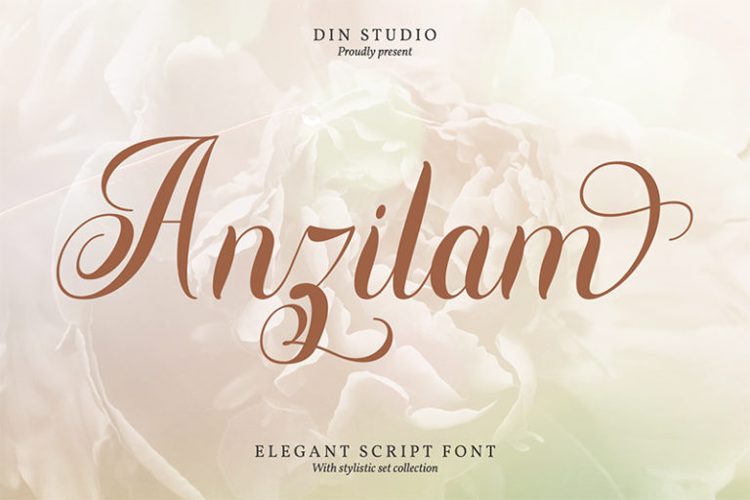
Anzilam Font
Anzilam is a modern calligraphy font. It brings a beautiful and attractive typeface. Made for any professional project branding. It is the best for logos, branding, wedding and quotes.
Features include:
• Stylish Sets
• Standard Ligatures
• Multilingual Supports
• Numerals and Punctuations